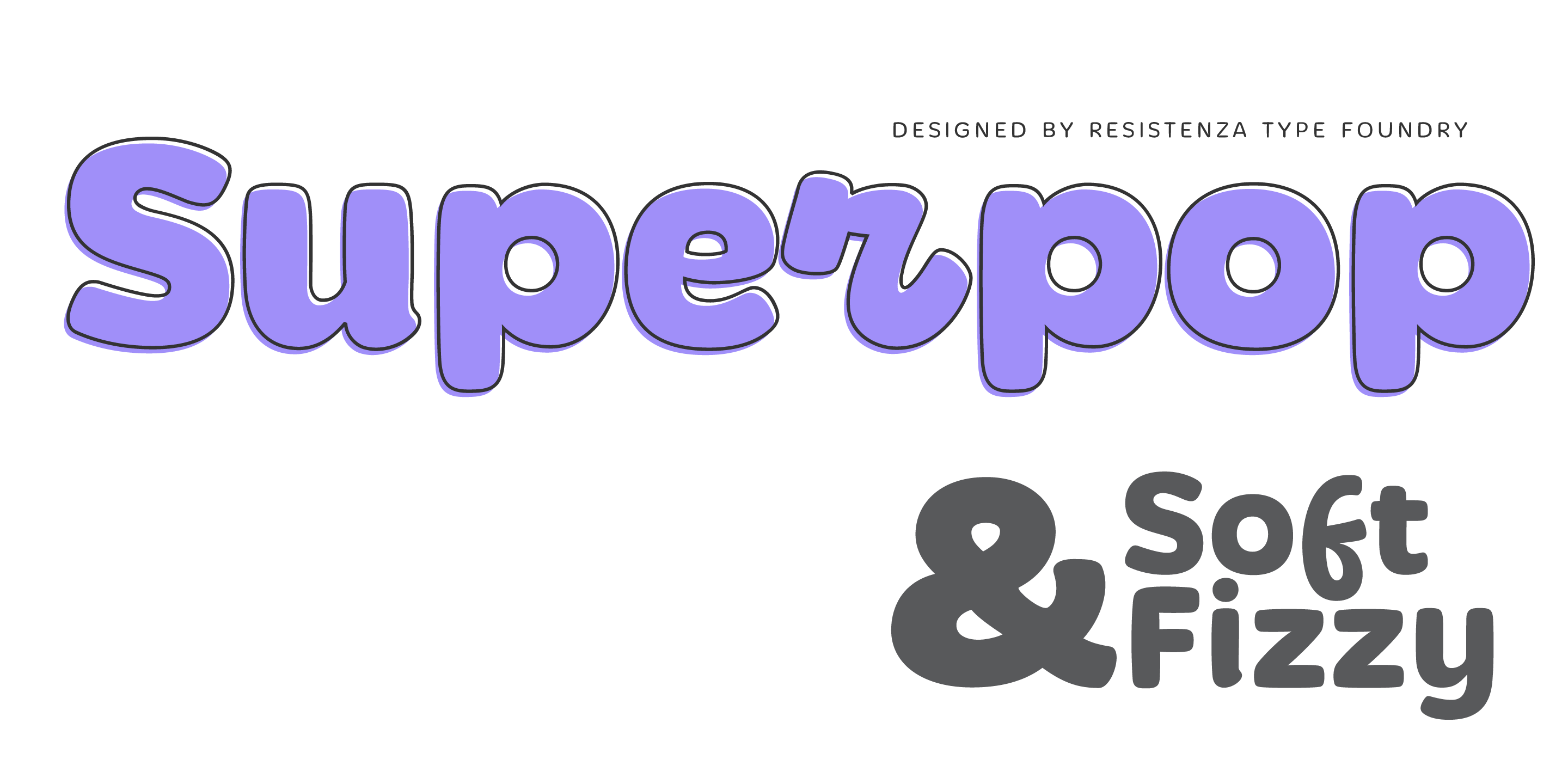
Superpop Font is an undeniably vibrant and energetic typeface that immediately evokes a sense of fun, playfulness, and modern retro cool. Imagine this font gracing the packaging of a new snack product, making it jump off the shelves with its cheerful vibe. It's also an excellent choice for branding children's toys, creating eye-catching social media ads, or designing posters for animated movies and comics where a bold, graphic impact is desired. Furthermore, Superpop Font can bring a lively and youthful energy to event promotions, casual apparel designs, and even YouTube channel branding, making any message feel fresh and exciting.
What makes Superpop Font truly exciting is its ability to infuse a design with immediate personality and a sense of effortless cool. It often features rounded edges, bold forms, and a friendly, approachable aesthetic that is both nostalgic and contemporary. This isn't just a stylistic choice; it's a font that conveys optimism and dynamism, making it perfect for projects that aim to capture attention and communicate joy. It stands out from conventional typefaces, offering a unique visual voice that is both memorable and highly engaging. For designers looking to inject their work with a burst of positive energy and a distinctive character, Superpop Font offers a genuinely captivating solution.
Superpop Font Family
Superpop Font typically comes with a family designed to maximize its playful appeal and ensure versatile application across various design elements. You'll often find it available in various weights such as Regular, Bold, and possibly Heavy or Outline versions, allowing for diverse typographic expressions. Many fonts in this style also include delightful alternate characters or stylistic sets that offer even more customization, enabling designers to create truly unique headlines and logos. The family might also feature all-caps versions with different heights for uppercase and lowercase letters, further enhancing its graphic punch and visual flexibility.